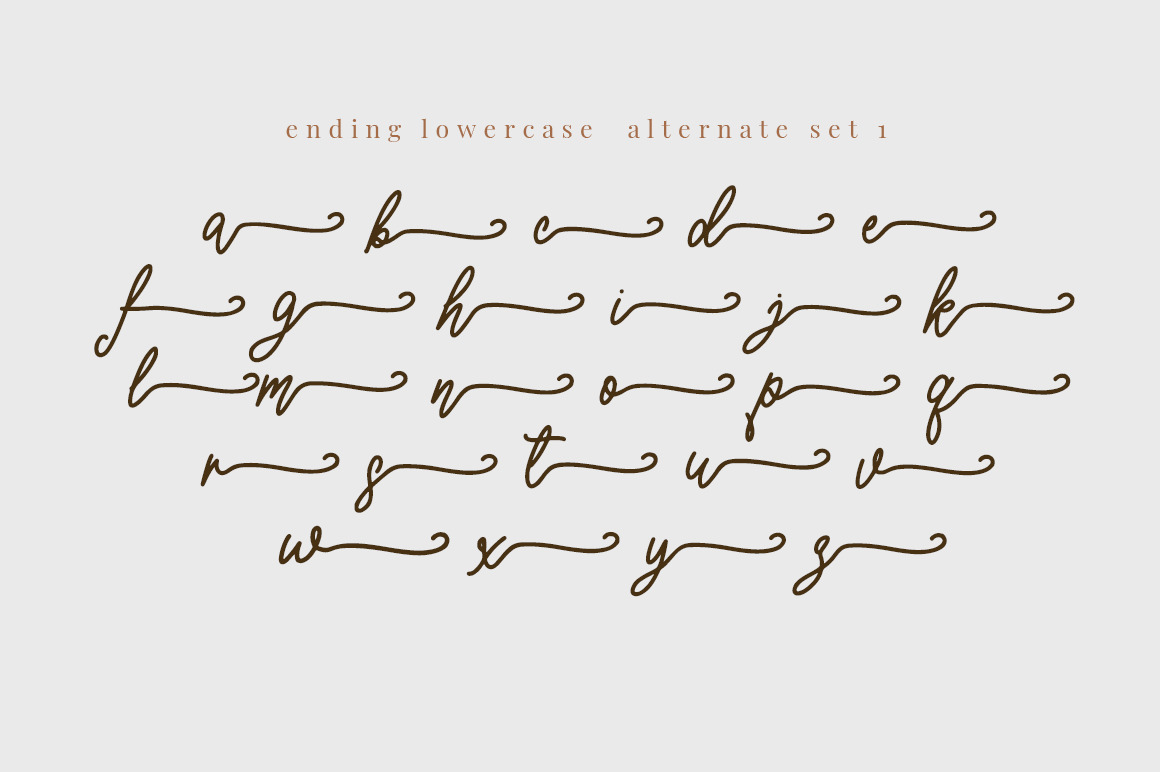
Swastika - A beautiful Script Font
Introducing Swastika, a beautiful Script font with a decorative and fancy script also small-caps companion, this passionate pair of hand-drawn marker fonts is for logos + branding ,website design + website accents – think travel blogs, fashion blogs, & more, Clean print design, like magazines + flyers, header elements that need handwritten touch, quote graphics for social media.
It comes with stylistic alternate, ligatures, swashes ( both beginning and ending swashes ), .ttf, .otf, woff and multilingual support.